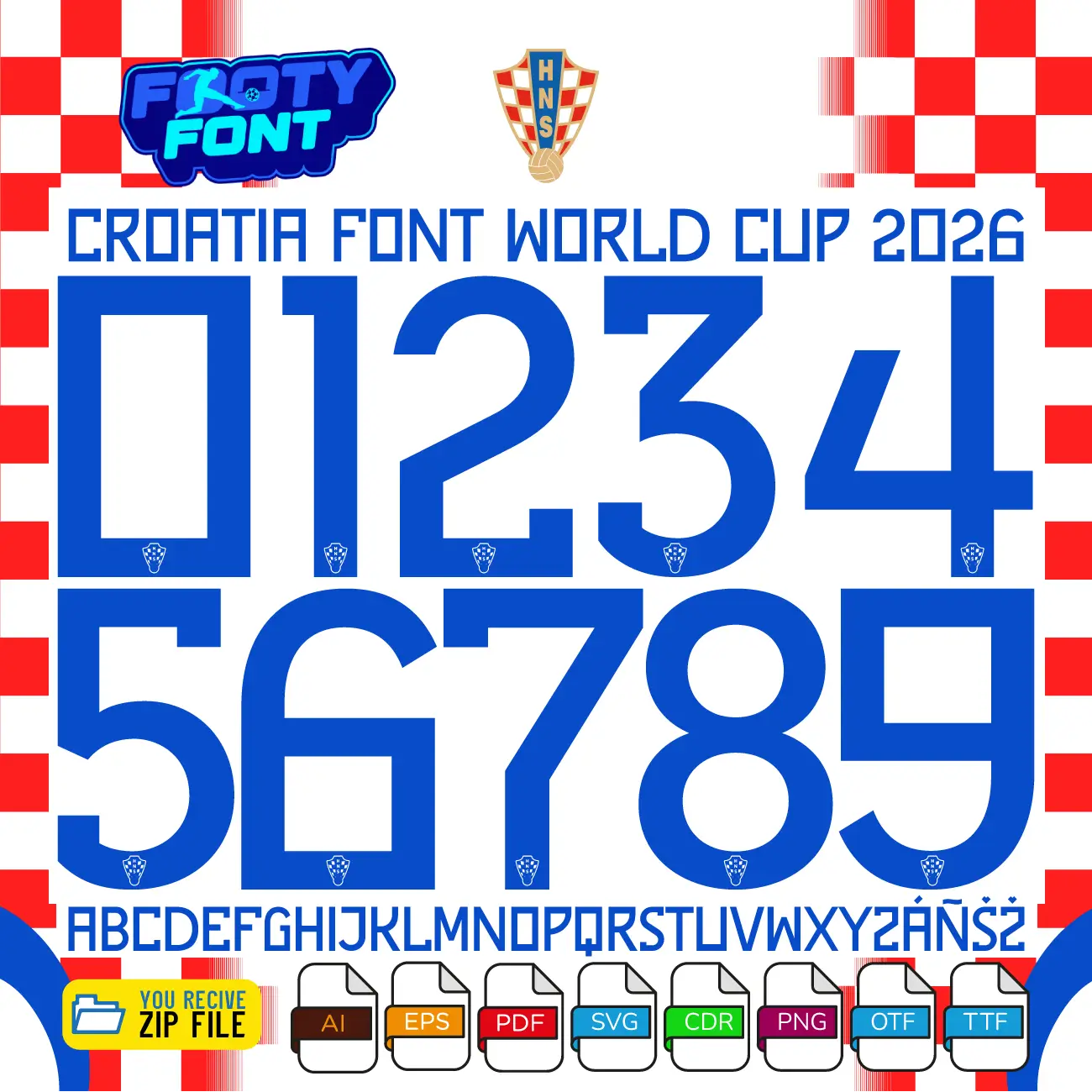
Croatia 2026 Football Font
Bring the iconic Vatreni style to your designs with this font football, inspired by the Croatia 2026 World Cup home kit. This high-quality typeface is meticulously designed to replicate the bold, geometric lettering worn by the Croatian National Team. It features striking, structured blue numbers with clean block cuts that perfectly complement their world-famous red-and-white checkered home jerseys.
This font captures the elite style worn by global superstars and legends like captain Luka Modrić, Joško Gvardiol, and Mateo Kovačić. As Croatia prepares to compete on the world stage, this home font is an absolute must-have for fans creating custom jersey designs, digital art, streetwear, or matchday posters.
Use this font to bring authentic Croatian football style into your designs-whether for custom jersey graphics, fan merchandise, posters, or social media content.